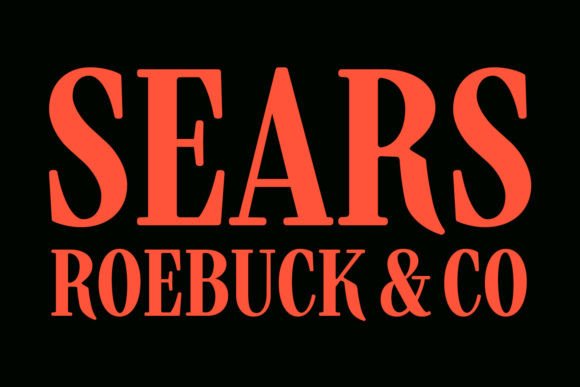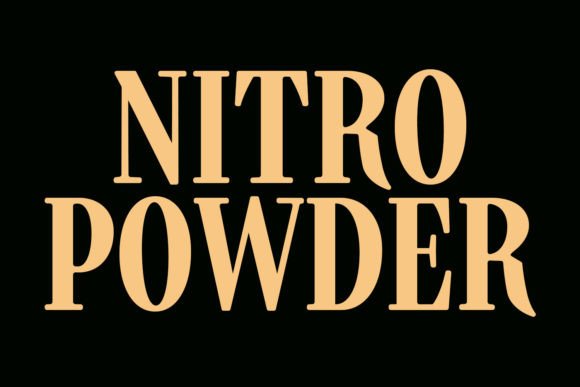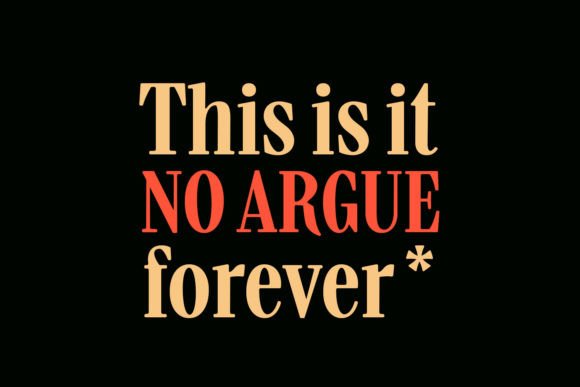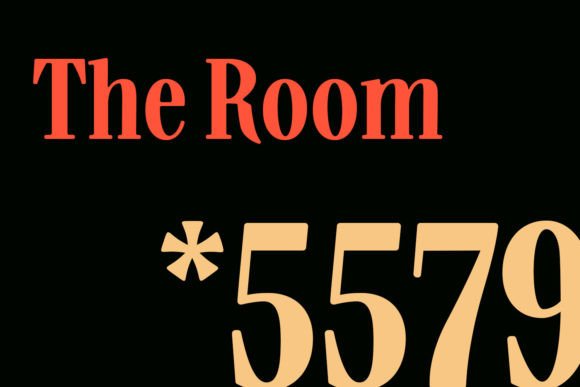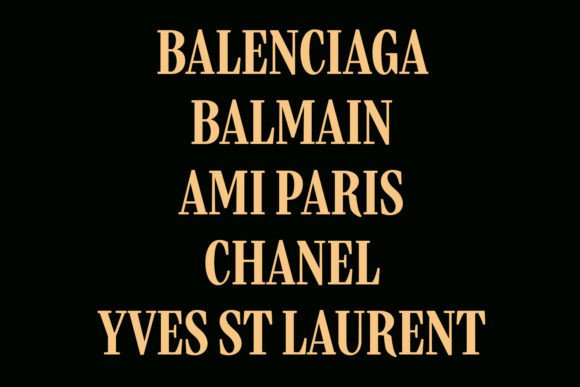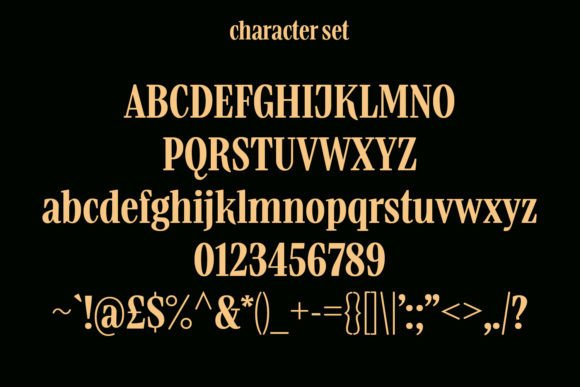
Introduction to Kristy Font
Do you remember that moment when a single font choice made all the difference in your design project? The one that elevated your creative vision and made it shine? For many designers, that moment is what drives their passion for their craft. And if you’re reading this, chances are you’re on the hunt for that perfect font to take your projects to the next level.
Enter Kristy Font, a modern and cool serif font that’s about to become your new best friend. With its sleek lines, sophisticated feel, and high-quality design, Kristy Font is the ultimate design resource for any creative project. Whether you’re working on a brochure, a website, or a social media campaign, this font is sure to bring a touch of elegance and sophistication to your work.
Key Features of Kristy Font
- High-quality, professional font suitable for creative projects, including digital designs, print materials, and web content.
- Features a unique, elegant design with a transparent background, allowing for seamless integration with various backgrounds and designs.
- Includes a wide range of characters, including uppercase and lowercase letters, numbers, and punctuation marks, making it suitable for various languages and applications.
Honest Review: Kristy Font
I recently had the chance to work with the Kristy Font and I must say, it’s a great addition to any designer’s toolbox. The high-quality design is perfect for creative projects that require a modern touch.
Here are some of the things that work well with the Kristy Font:
- ✨ The transparent background allows for easy layering and customization in design projects.
- ✨ The font’s clean and simple design makes it suitable for a wide range of applications, from logos to body text.
- ⚠️ The font may not be as versatile as some other options, particularly for more complex or ornate designs.
- ⚠️ Some users may find the font’s simplicity too plain, particularly for projects that require a more dramatic or attention-grabbing effect.
Overall, I’m impressed with the Kristy Font and would definitely recommend it to designers looking for a high-quality, free design resource. It’s perfect for a wide range of creative projects, and its transparent background makes it easy to use in a variety of contexts.
Tips for Getting the Most Out of Kristy Font
To get the most out of the Kristy Font, use it in combination with other design elements, such as bold colors and creative textures. You can also experiment with different font sizes and styles to create a unique visual effect.
Common Use Cases for Kristy Font
The Kristy Font is suitable for a wide range of creative projects, including graphic designs, social media graphics, and digital invitations. Its transparent background makes it ideal for designs that require a subtle, stylish typography solution.